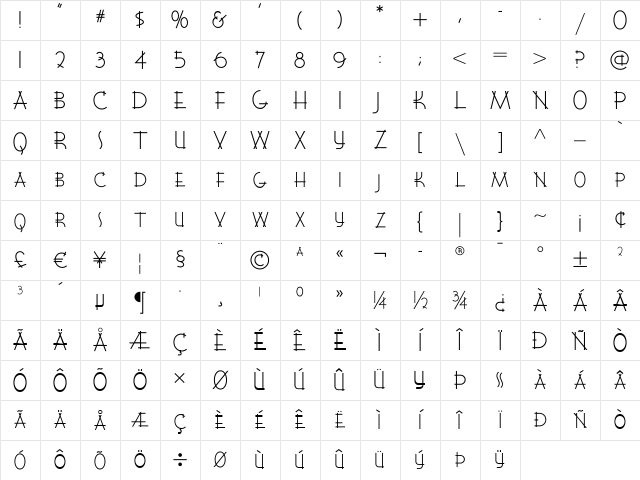
Complete WigwamNF Light glyph index. Displaying only characters natively supported by WigwamNF Light font.
WigwamNF is a composed and adaptable typeface that performs quietly and consistently across a wide range of design contexts. Its slender proportions lend an understated elegance to any composition.